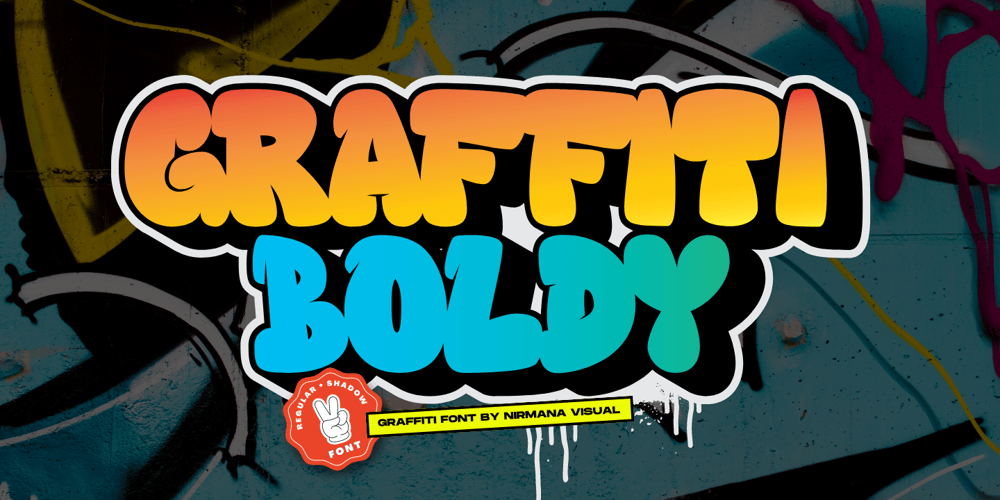
Graffiti Boldy Font Family was designed by Sigit Dwipa and published by Nirmana Visual. Graffiti Boldy contains 2 styles and family package options. Inspired by Graffiti style Design, with 2 Style : Regular & ShadowGraffiti Boldy offers beautiful typographic harmony for a diversity of design projects, including logos & branding, social media posts, advertisements & product designs.